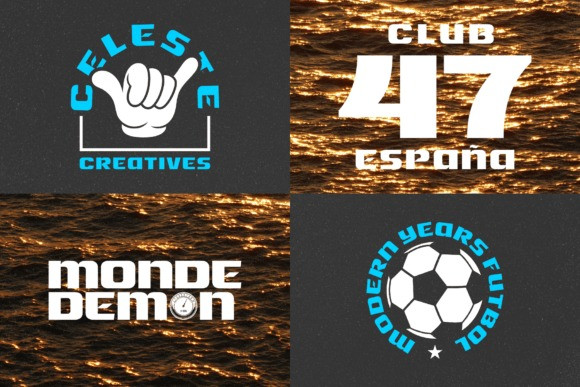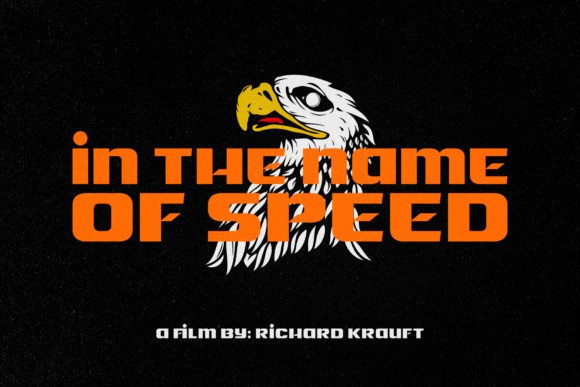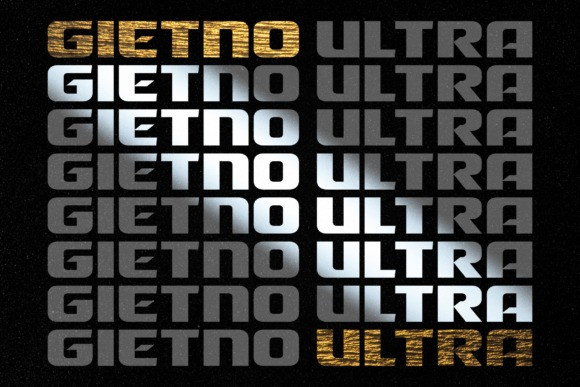
Gietno Ultra Font
Gietno Ultra Font Designed with a bold personality, it gives it an “in your face!” feeling, but still maintains its readability. Add it to your projects and enjoy the results!